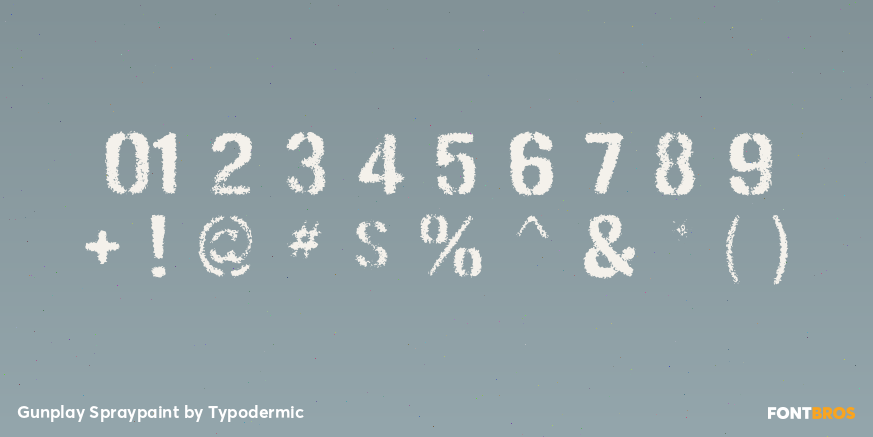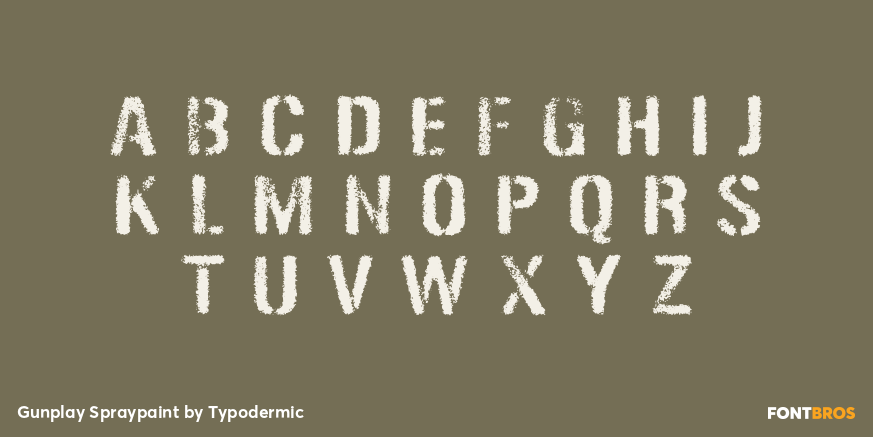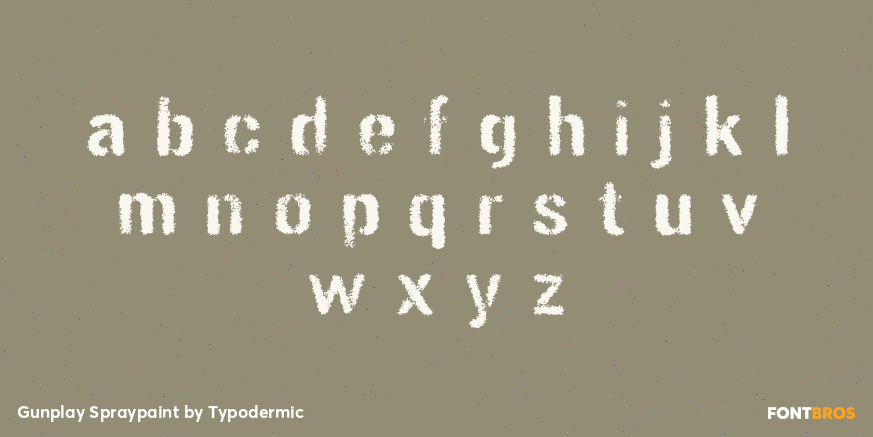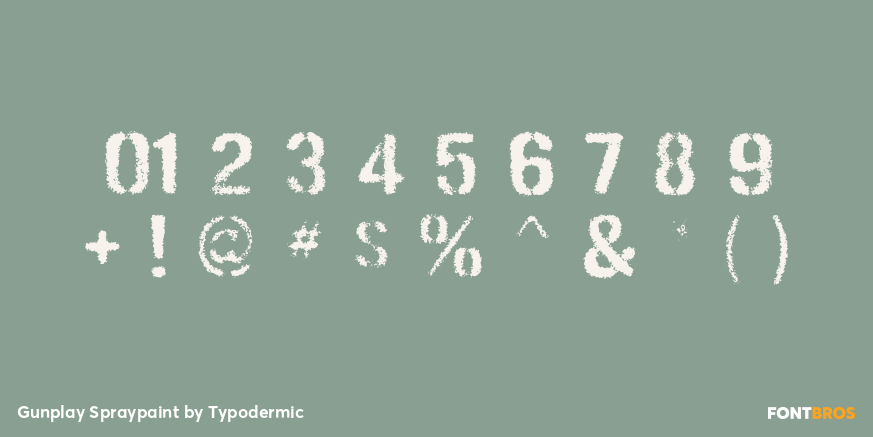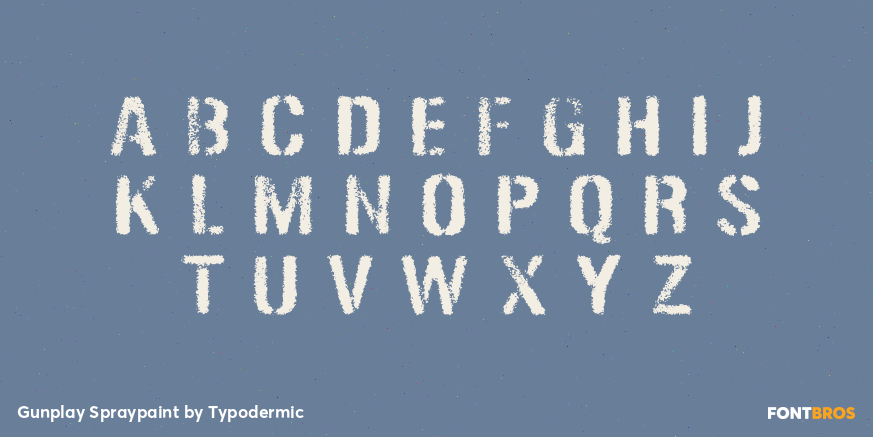
Gunplay Spraypaint
Buy NowGunplay Spraypaint renders the same condensed stencil forms with broken, fuzzy edges, uneven paint deposits, and scattered overspray. The cuts remain recognizable beneath the aerosol texture, creating the appearance of letters sprayed through a physical template rather than the hard-edged abrasion found in Gunplay Damage.
As a spray-painted stencil font, it suits temporary loading-bay markings, backstage and crew-zone signs, shipping crates, construction barriers, paddock graphics, and campaign images built around field-applied lettering. Its irregular deposition gives tour names, equipment labels, event headings, and short calls to action an immediate sprayed-on finish without adding a separate paint texture in layout software.